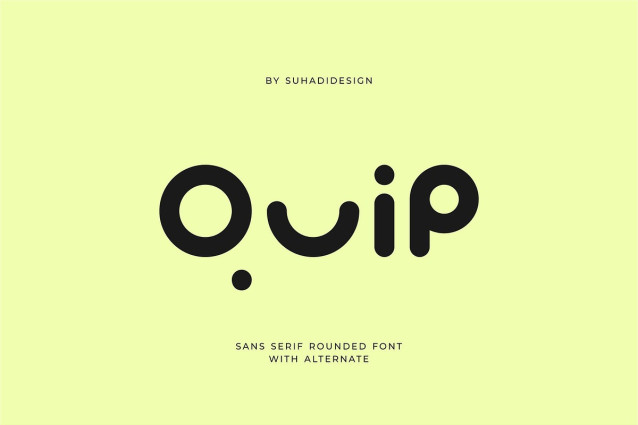
Quip Font
Quip Font is a cool font for millennials and Gen Z, presented in a modern style that’s a market favorite. We’ve kept this font looking cool, classy, modern, stylish, up-to-date, and easy to use. Quip is the perfect choice for logos, brands, companies, startups, labels, fashion, branding, brand names, and other projects. Quip is here to take your designs to the next level.